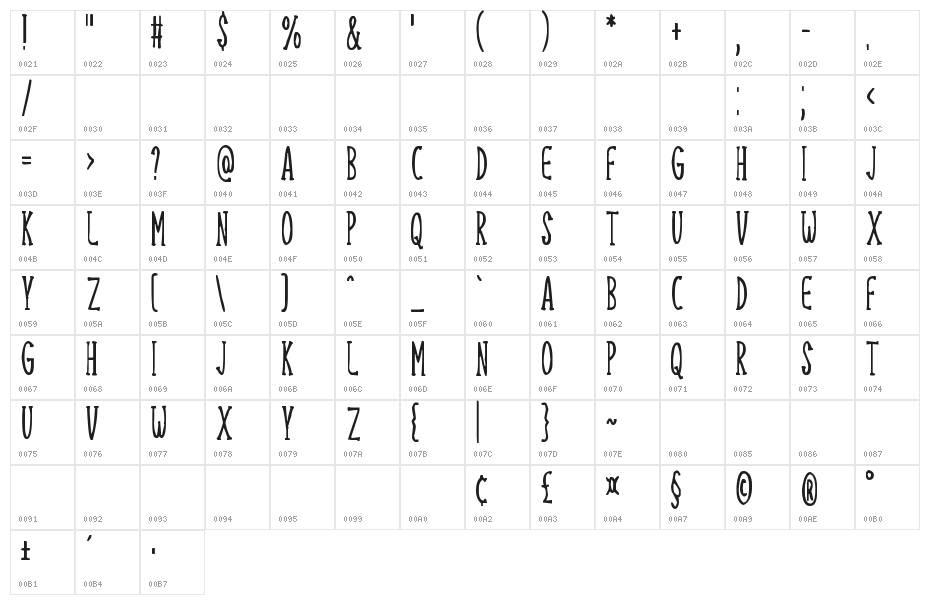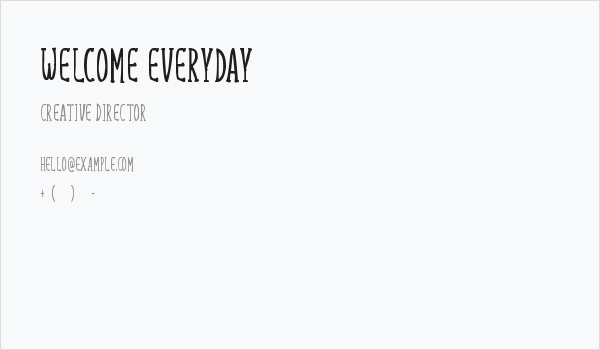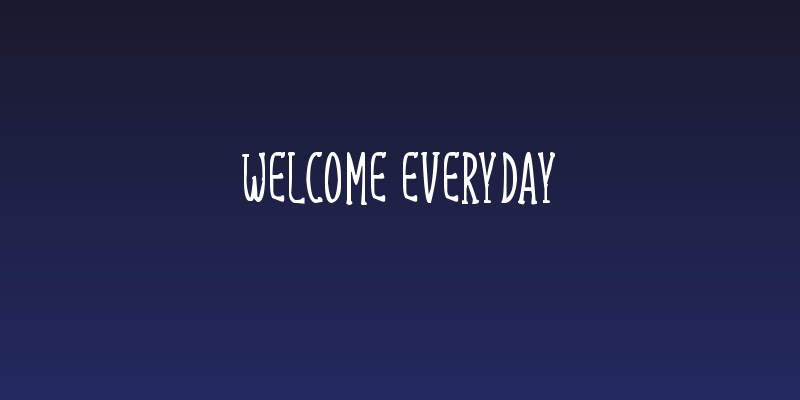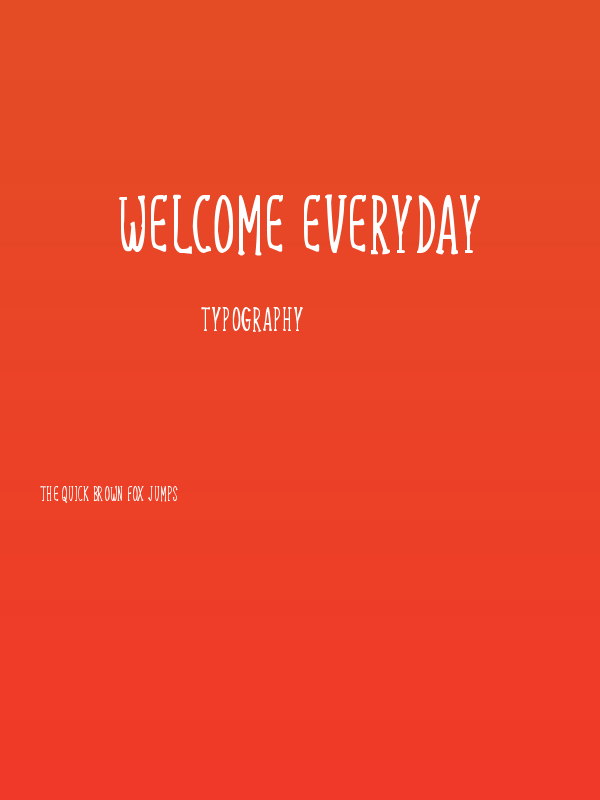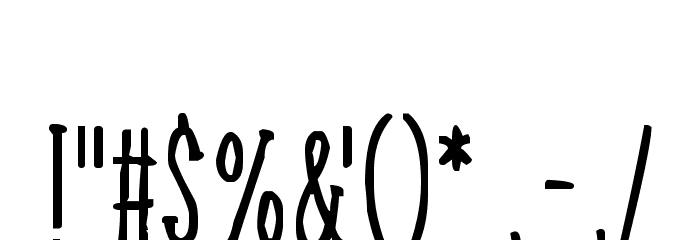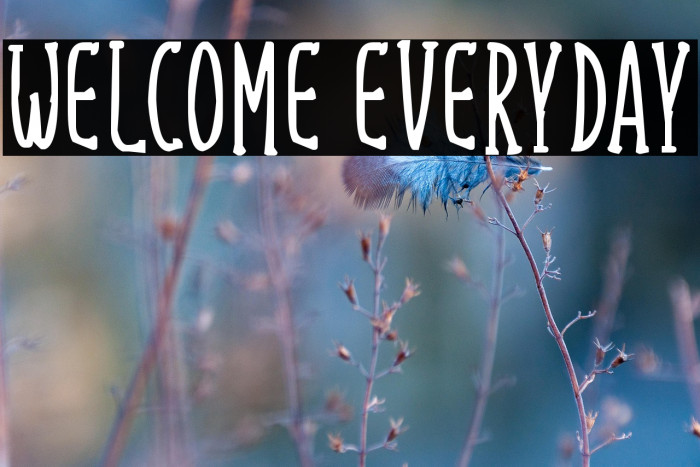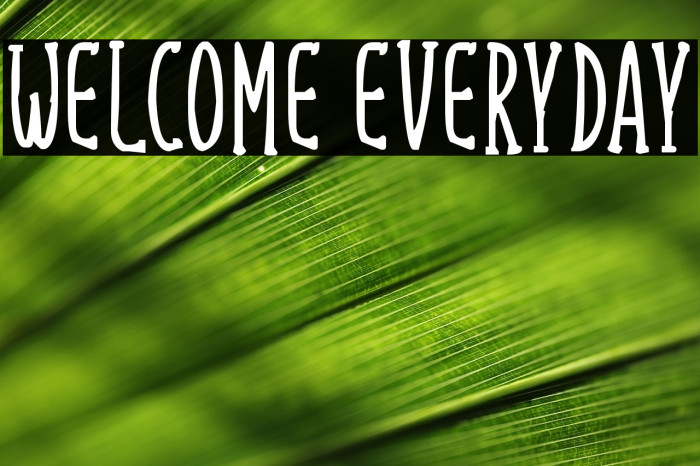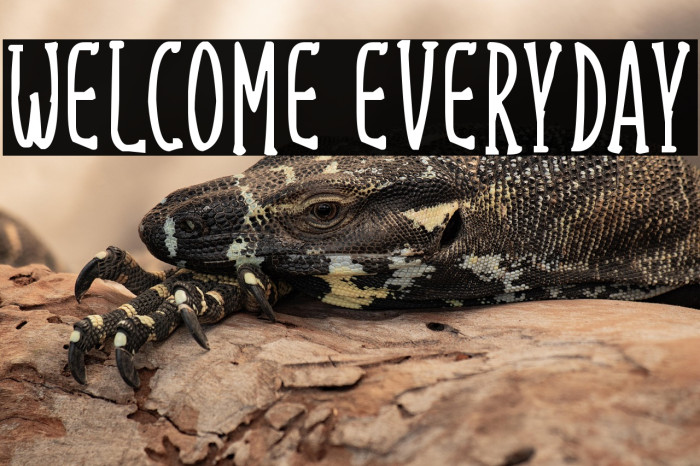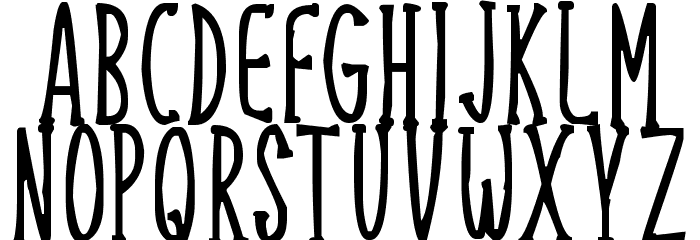
Welcome Everyday Font
Welcome Everyday Description
This font features a playful and whimsical design with tall, narrow characters that have a hand-drawn appearance. The strokes are uneven, adding to its casual and informal style. The uppercase letters are particularly elongated, giving the font a distinctive look. The lowercase letters maintain the same quirky style, with some characters having unique, exaggerated features. The numbers and special characters are consistent with the overall playful theme, making this font suitable for creative and fun projects.
| Proposed Projects | Ideal for children's books, greeting cards, playful branding, and casual invitations. |